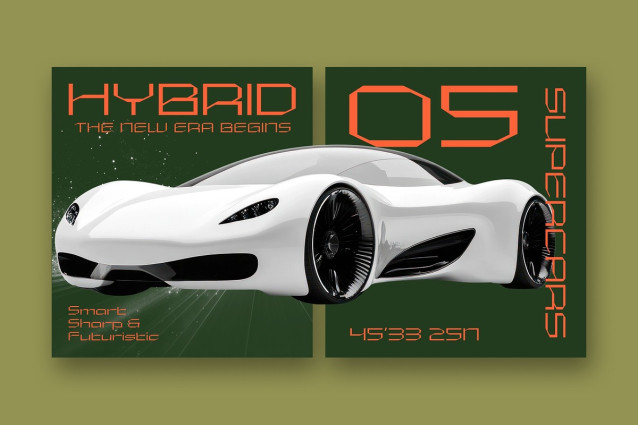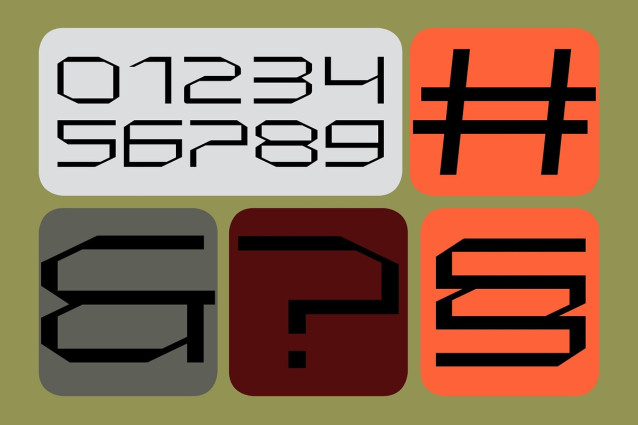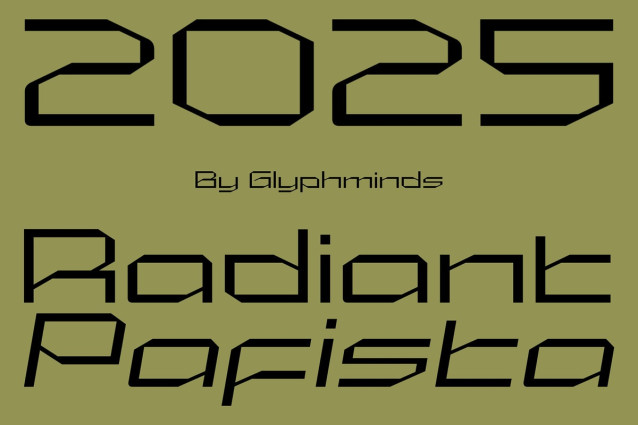
Radiant Pafista Font
Radiant Pafista Font, a powerful and dynamic display font that will launch your designs into a new dimension. With its sharp angles, bold geometric construction, and unique stencil-like details, Radiant Pafista is engineered to make a statement.
This font captures the essence of modern technology, sci-fi worlds, and digital landscapes. The clean, wide letterforms provide a strong, assertive look, while the italicized version adds a sense of motion and speed.